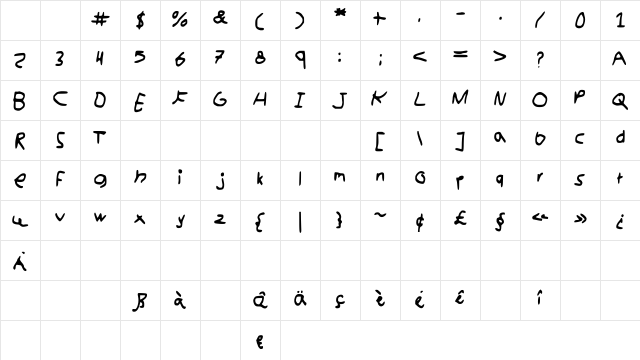
Complete kidswritting Medium glyph index. Displaying only characters natively supported by kidswritting Medium font.
kidswritting has an approachable, lighthearted character - its loose, expressive forms are well-suited to children's content, casual branding, and fun-first design.
Font Pairing: Pairs well with a rounded or humanist sans for body copy, maintaining the friendly tone without relying on kidswritting to carry extended reading.
Pro Tip: Use kidswritting at larger display sizes where its expressive character can land. Pair with a clean, simple sans for body copy to maintain readability.